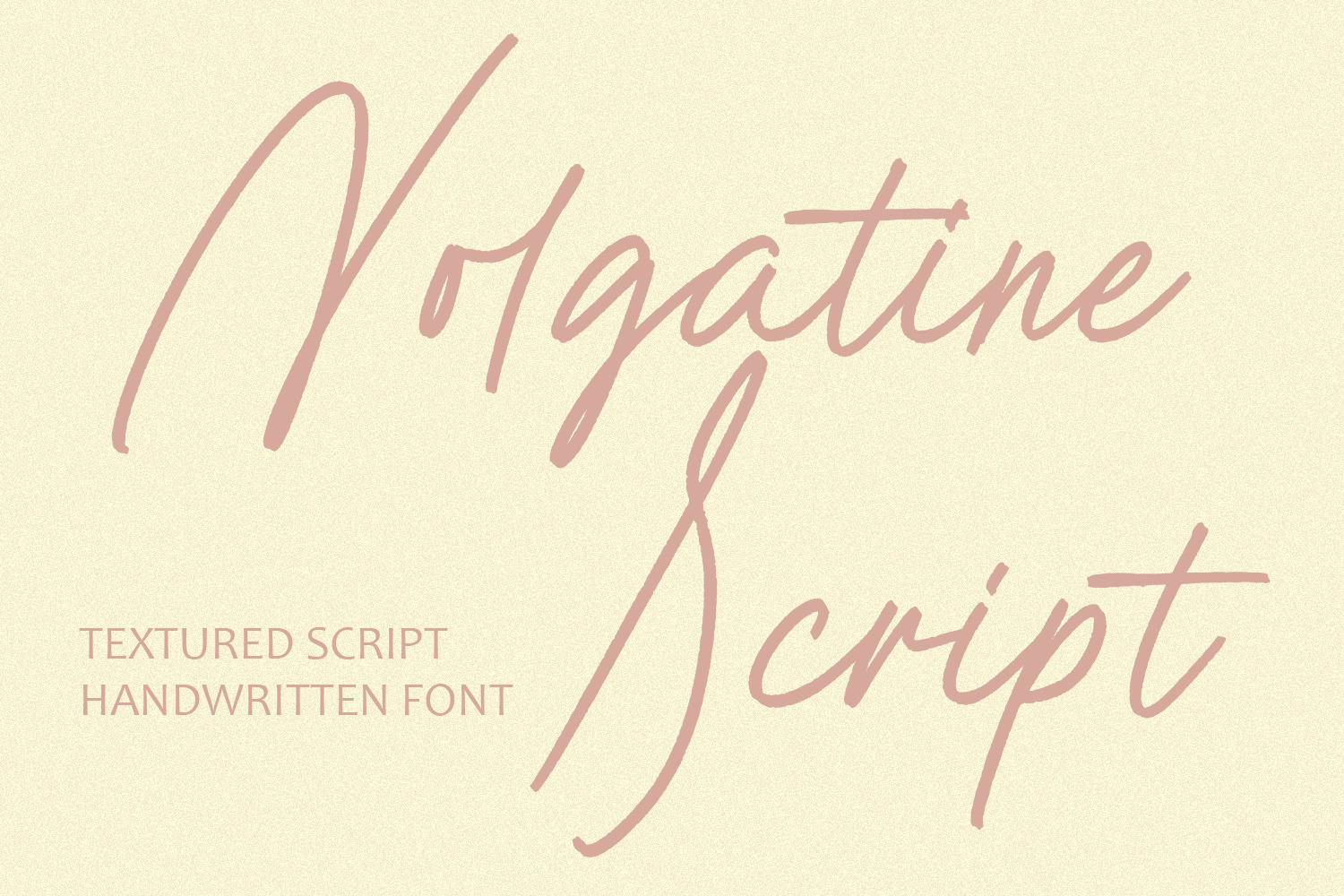
Nolgatine Script Font
Description: Nolgatine Script is a refined handwritten font with a natural textured flow, perfect for adding a personal and sophisticated touch to your designs. Its graceful letterforms make it ideal for branding, invitations, social media posts, and editorial layouts, offering both charm and versatility for various creative projects.
Features : Uppercase and lowercase characters